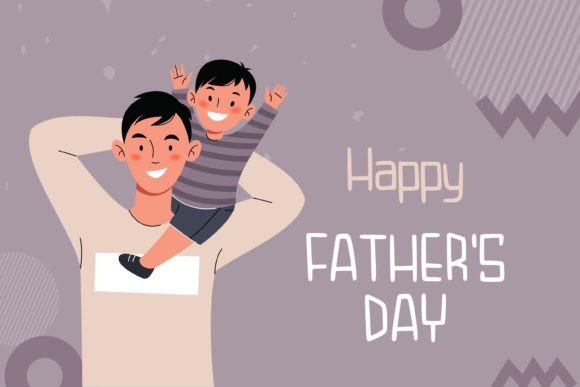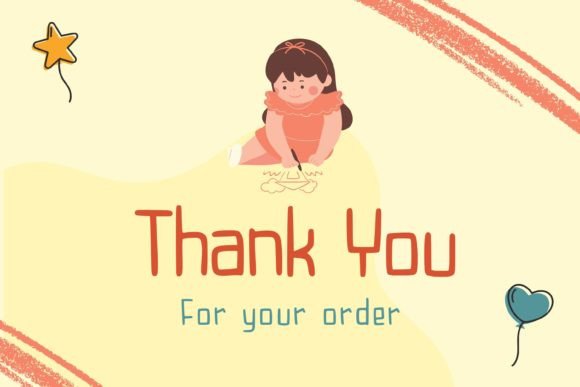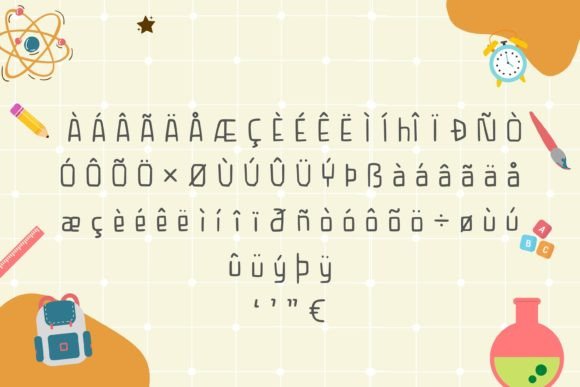
The Chasegelio font is a playful and friendly handwriting font that brings joy and charm to any creative project. It’s perfect for a variety of uses, including greeting cards, invitations, stickers, social media posts, decorations, and much more.
With its casual yet stylish design, the Chasegelio font adds a unique personality that makes your projects stand out. Whether you’re designing for special occasions or everyday creativity, this font offers versatility and fun.
Downloading the Chasegeliofont will enrich your font collection with a vibrant, approachable handwriting style suitable for digital and print projects alike. Use it to create eye-catching designs that connect with your audience on a personal level.
In summary, the Chasegeliofont is an excellent choice to add a playful and friendly touch to your creative works. Download it now and start making your designs come alive with charming handwriting style!